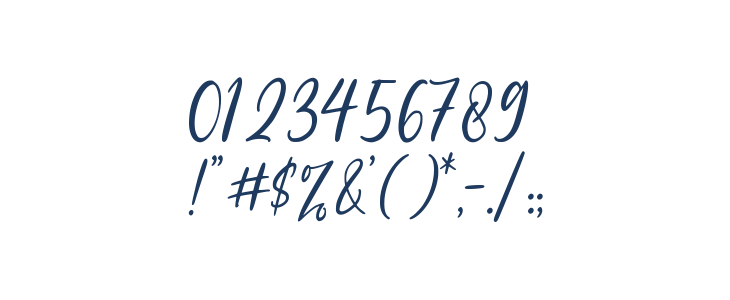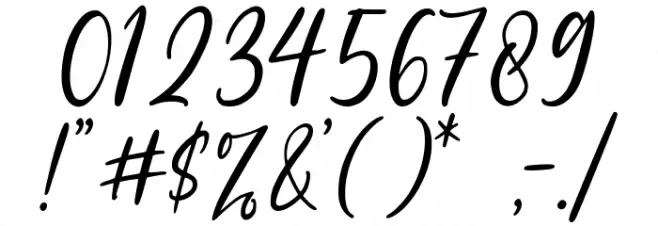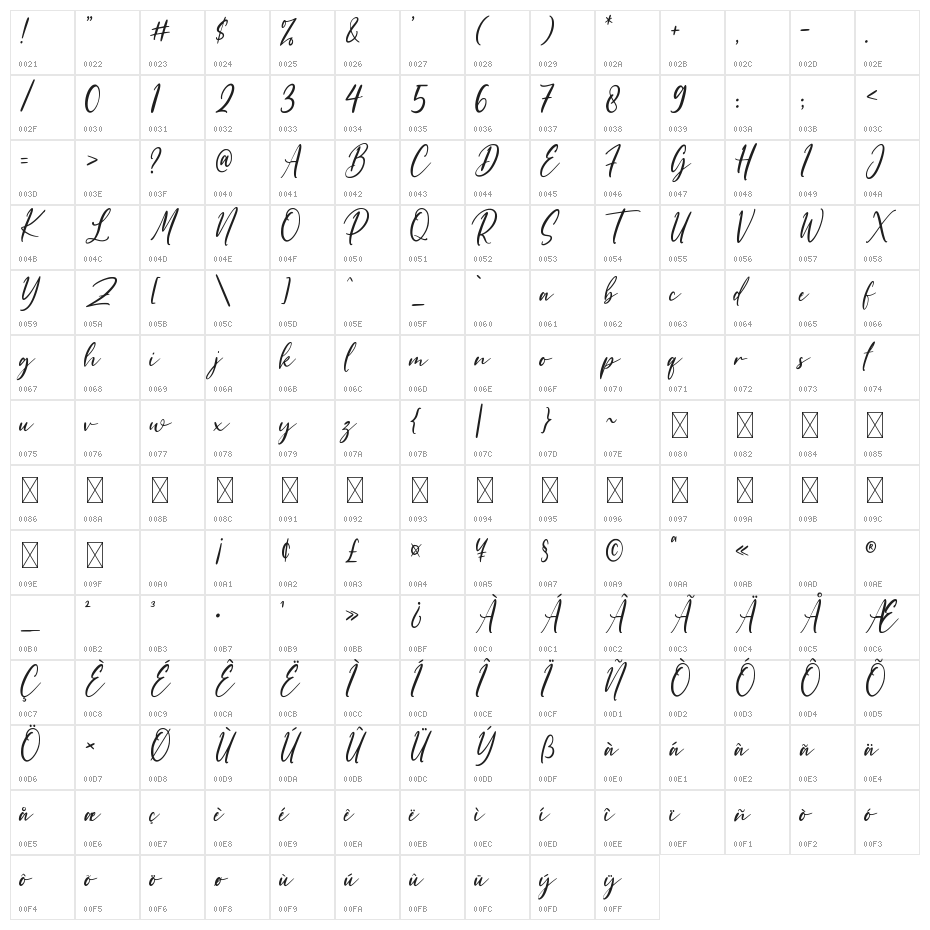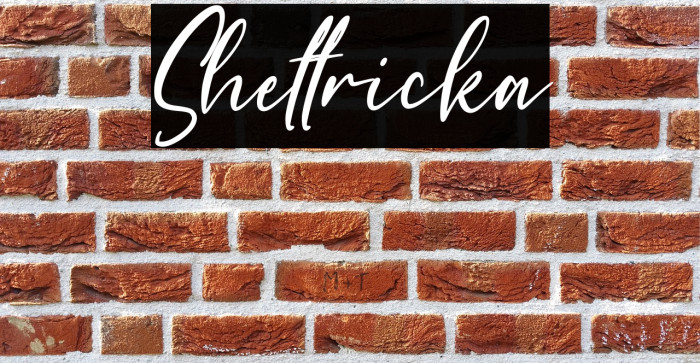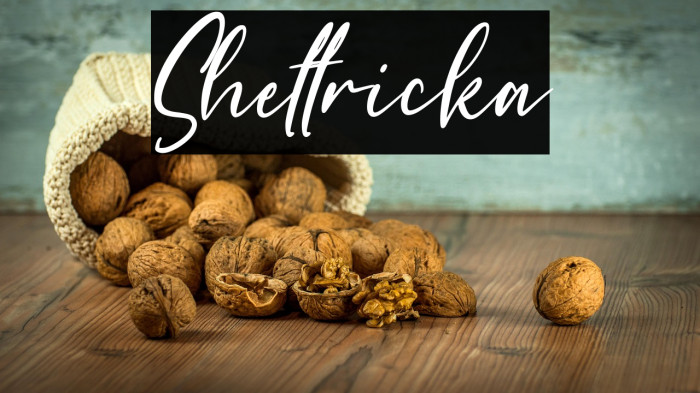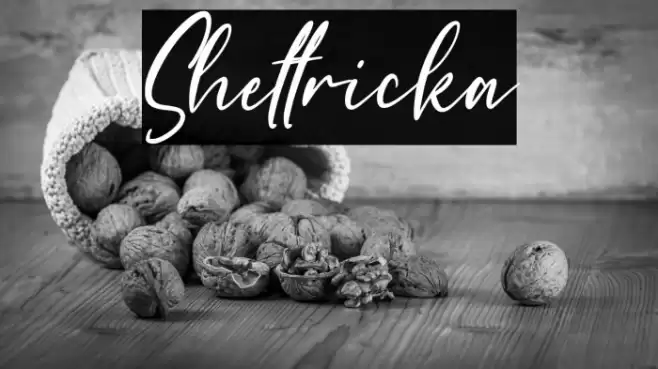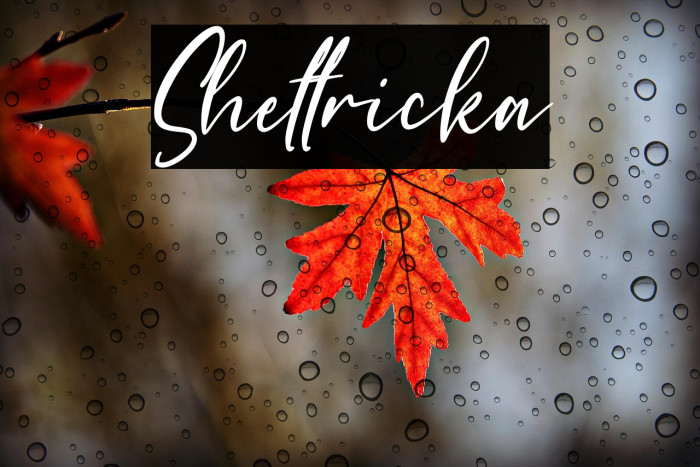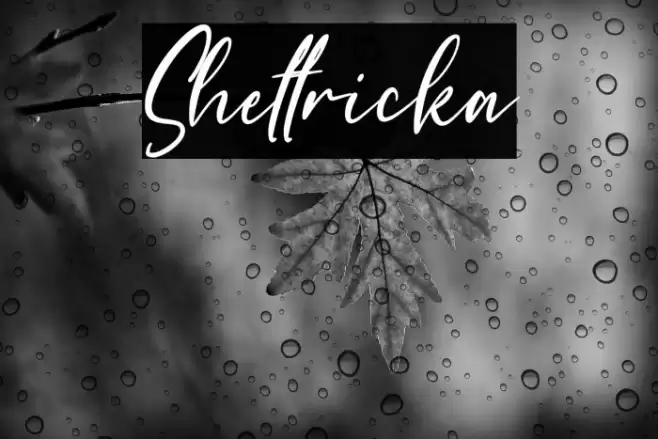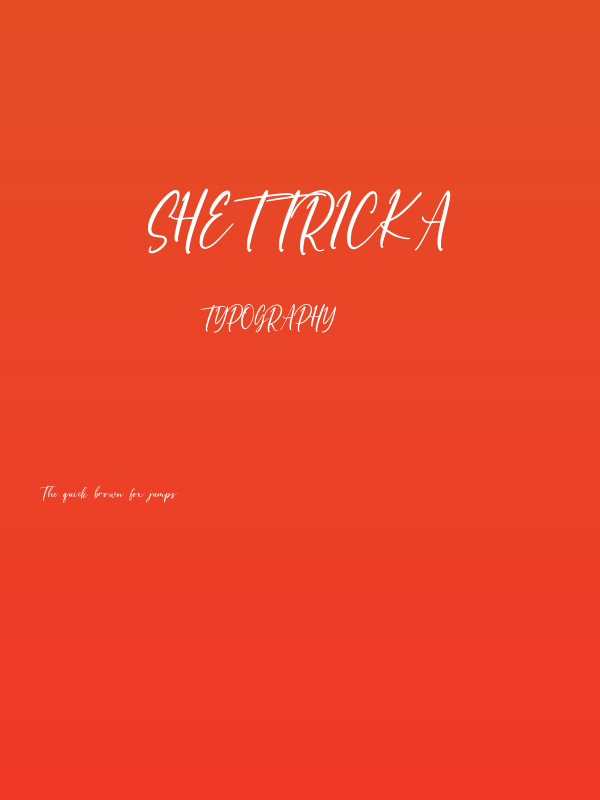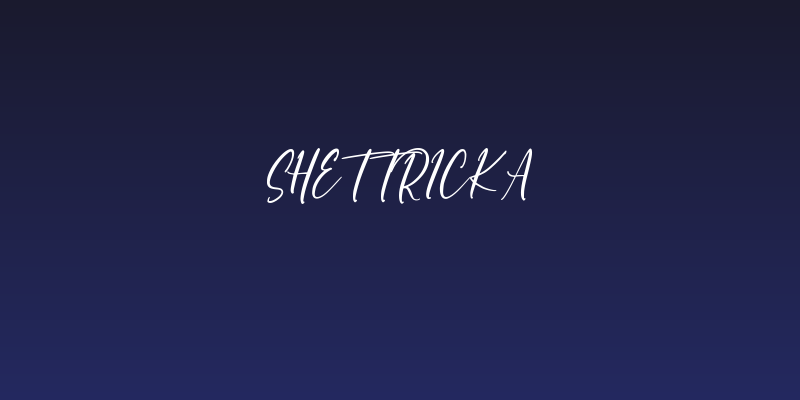
Shettricka Font
Shettricka Description
This font exudes elegance and fluidity, characterized by its cursive script style. The letters are interconnected with smooth, flowing strokes that create a sense of movement and grace. The uppercase letters are tall and slightly slanted, while the lowercase letters maintain a consistent flow with gentle curves. The numerals are styled to match the script, with a playful yet sophisticated appearance. Special characters are integrated seamlessly, enhancing the font's versatility. This font is ideal for projects that require a touch of sophistication and personal flair.
| Proposed Projects | Wedding invitations, greeting cards, branding materials, and elegant signage. |